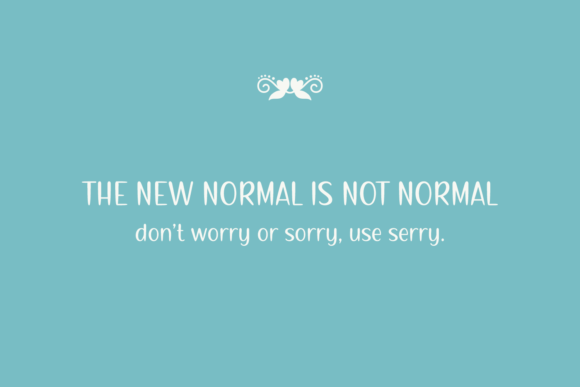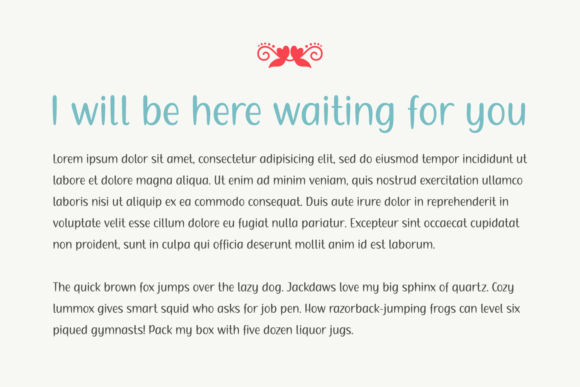
Introduction to Serry Font
As you sit at your desk, surrounded by scraps of paper, glue sticks, and colorful markers, the creative juices start flowing. You’re about to embark on a fun project that requires a personal touch, and you know just the thing to make it happen – a beautiful handwritten font that adds a touch of warmth to any design.
Meet the Serry Font, a delightful and friendly handwritten font that’s perfect for any crafting project that needs a high-quality, personalized look. With its transparent background and versatility, this design resource is a must-have for any creative project. Whether you’re a seasoned designer or a crafty enthusiast, the Serry Font is sure to elevate your work and make it stand out.
Key Features of Serry Font
- High-quality design with a transparent background, ideal for creative projects.
- Comes in a single weight, perfect for adding a touch of elegance to your designs without overwhelming the content.
- Size: The font family includes a range of characters, including uppercase and lowercase letters, numbers, and punctuation marks.
- Unique characteristics include a clean, modern aesthetic and a subtle texture that adds depth to your designs.
Honest Review: Serry Font
As a designer, I’m always on the lookout for high-quality design resources that can elevate my creative projects. Recently, I had the chance to work with the Serry Font, and I’m excited to share my honest review.
- Clean and modern design aesthetic: The Serry Font has a sleek and sophisticated look that’s perfect for contemporary creative projects.
- Transparent background: The font’s transparent background makes it easy to use in various design scenarios, from logos to digital art.
- Limited character set: The Serry Font only includes a limited set of characters, which may not be suitable for projects that require a wide range of typographic options.
- Not ideal for small text: Due to its modern design aesthetic, the Serry Font may not be the best choice for small text or body copy.
Overall, I think the Serry Font is a great addition to any designer’s toolkit. While it may have some limitations, its high-quality design and transparent background make it a valuable resource for creative projects. With a little creativity, you can make the most of this free download and take your designs to the next level.
Tips for Getting the Most Out of Serry Font
Use the Serry Font in combination with a high-quality image or background to create a visually appealing design. Experiment with different font sizes, colors, and styles to find the perfect balance for your creative project. The free download of the Serry Font makes it an excellent choice for designers on a budget.
The Serry Font is suitable for a wide range of design projects, including logos, graphics, titles, headings, and body text. It is an excellent choice for creative projects that require a high-quality, transparent background font.
For optimal results, we recommend using Serry Font at a resolution of 300 DPI or higher. This will ensure that the font appears crisp and clear, even when used on high-resolution displays or in large-scale creative projects.
Is Serry Font suitable for designs with transparent backgrounds?
Yes, Serry Font is designed to work seamlessly with transparent backgrounds. The font’s transparent background allows for easy layering and compositing, making it an ideal choice for designers who need to create complex, multi-layered designs.